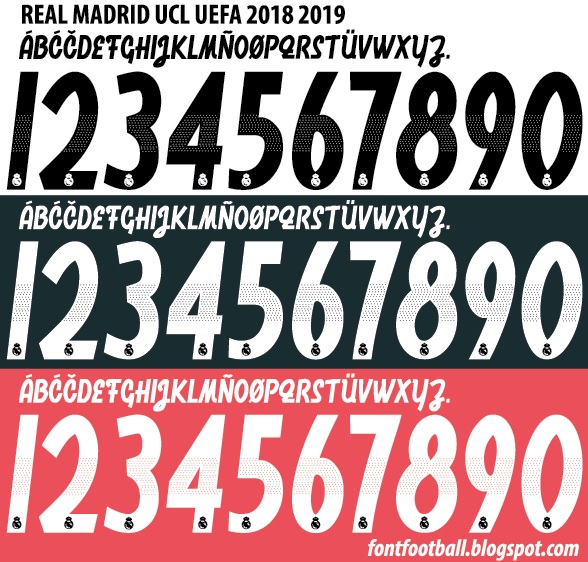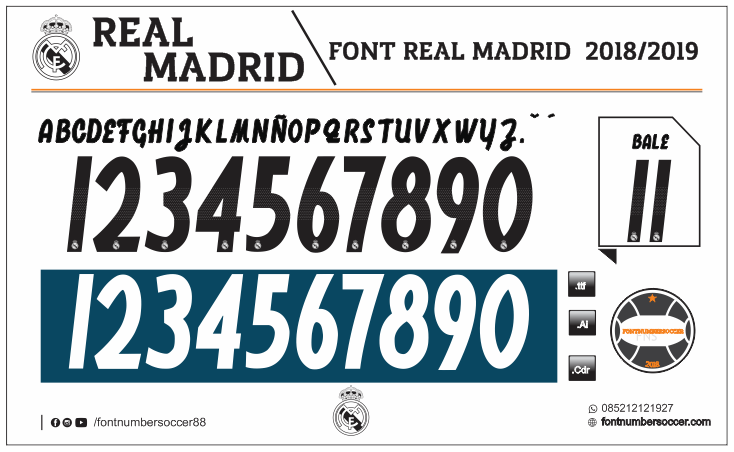
real madrid 2019 font
A shiny detail of the kit the font that will be used not only on the sergio ramos and luka modrics jerseys but also on those of the new summer signings eder militia luka jovic and eden hazard.
Real madrid 2019 font. Rea madrid 20202021 ucl font. Used for 20182019 season in cup competitions champions league copa del ray and 2018 fifa club world cup. Jadi buruan download. Real madrid 2019 font sport fonts real madrid font 2018 19 ucl download real madrid 2011 2012 font by unknown fontriver download gratis file corel draw font jersey real madrid 2018 real madrid font football 17 18 ttf real madrid 2015 2016 font vector and ttf free download real madrid jersey number font download.
Sekarang kamu bisa pakai font ini untuk berkreasi. Real madrid 20192020 font. Here i give you the new real madrid 20182019 font. The font will be worn during their 2019 2020 season in their cup competitions uefa champions league and copa del rey.
They will use this font for ucl competitions.